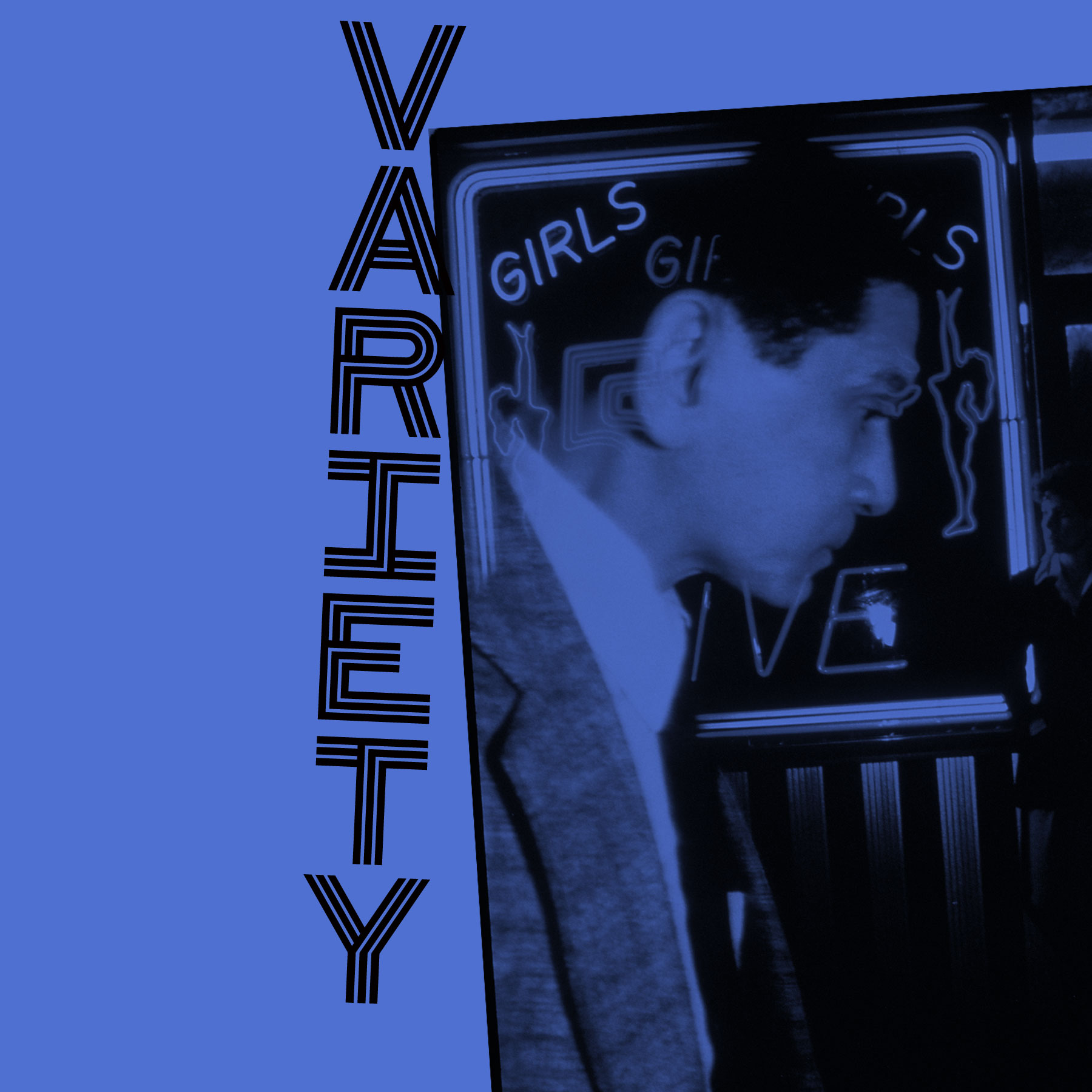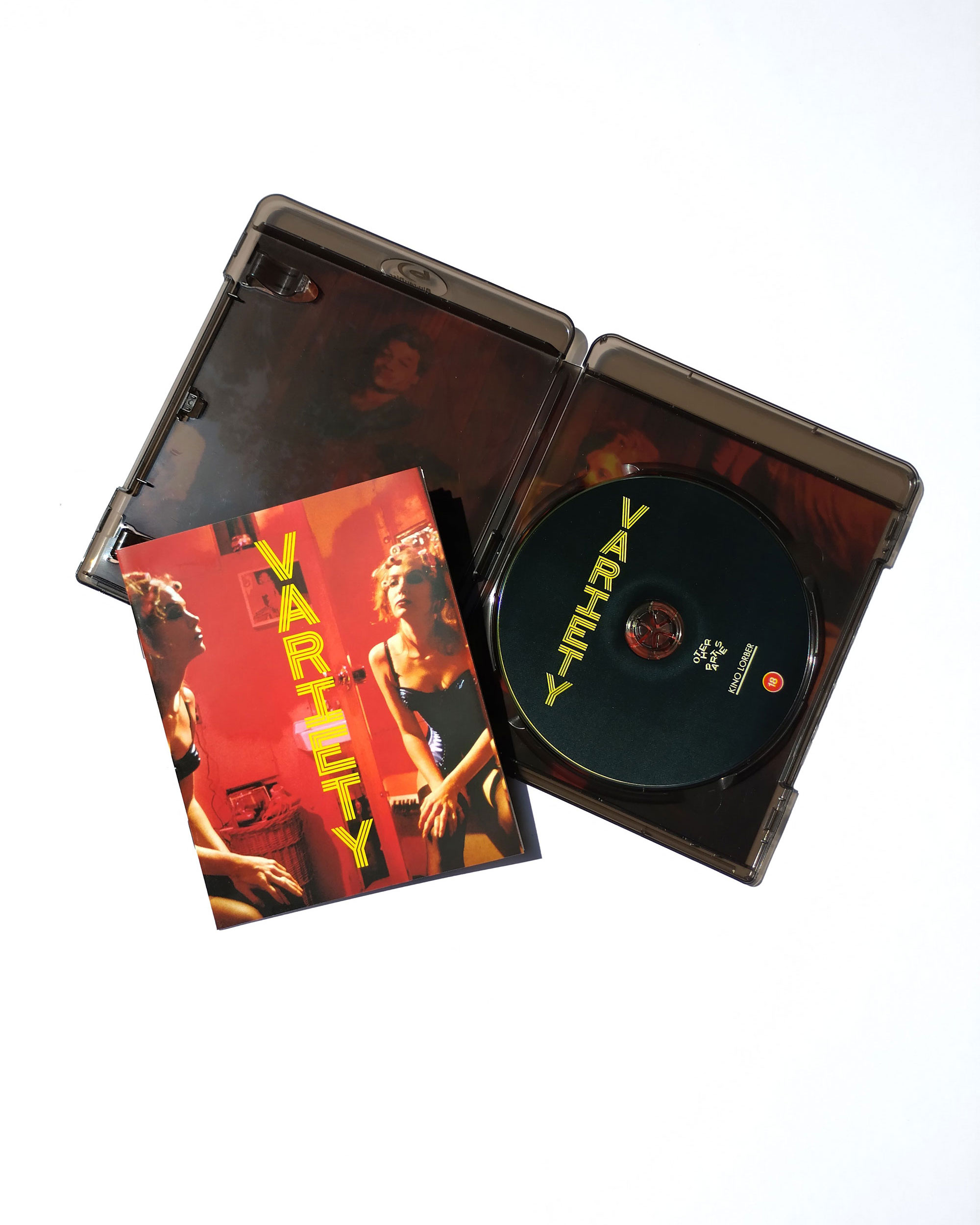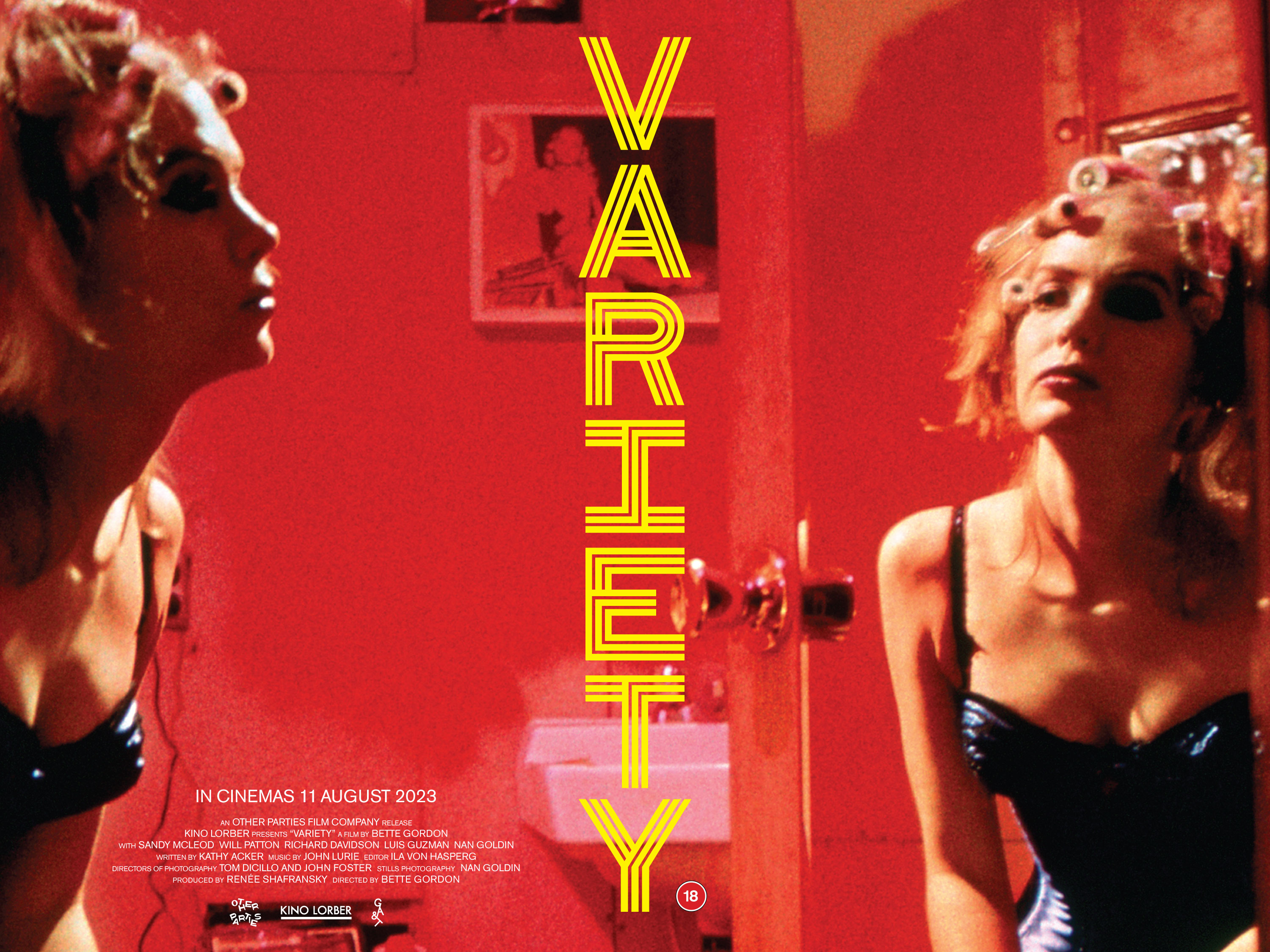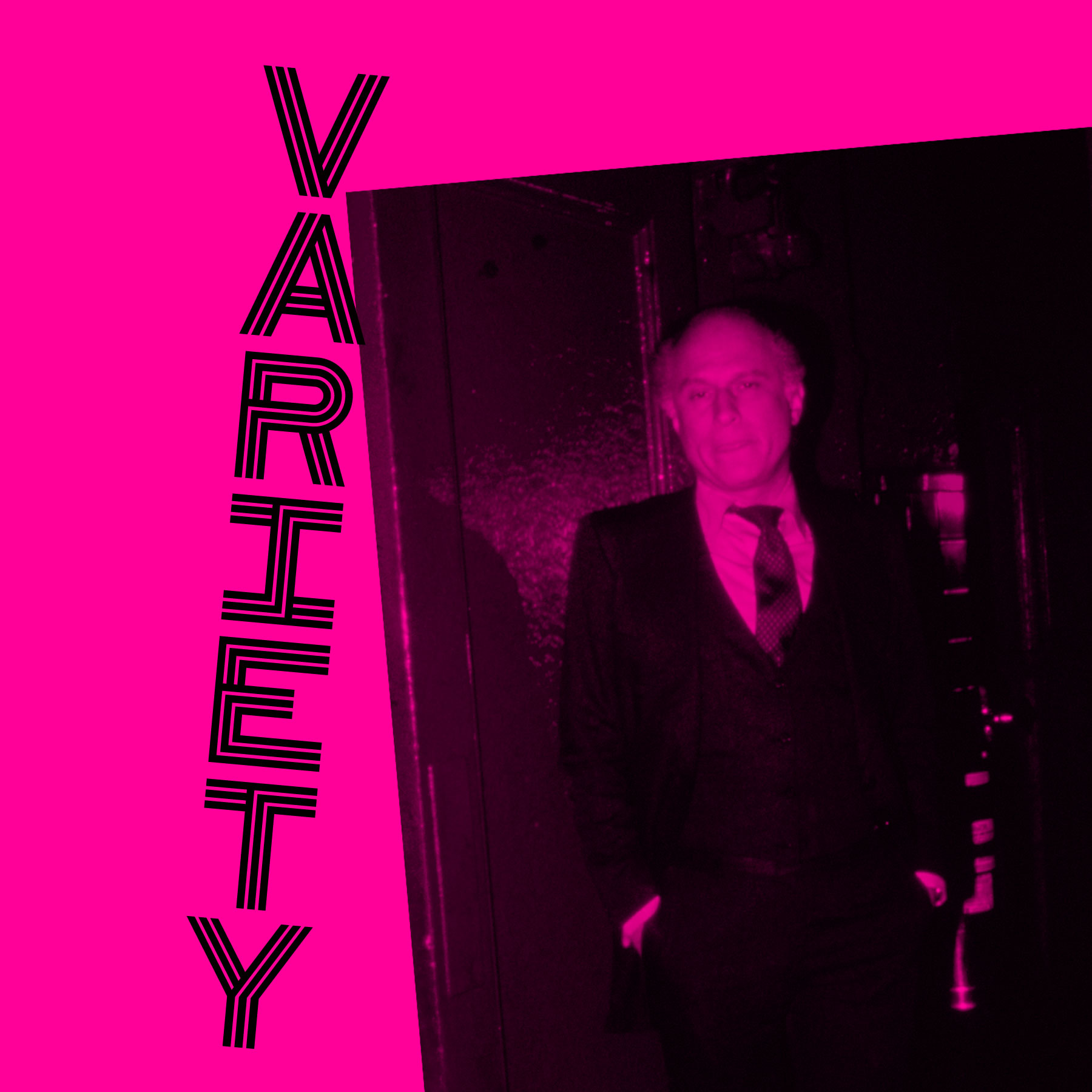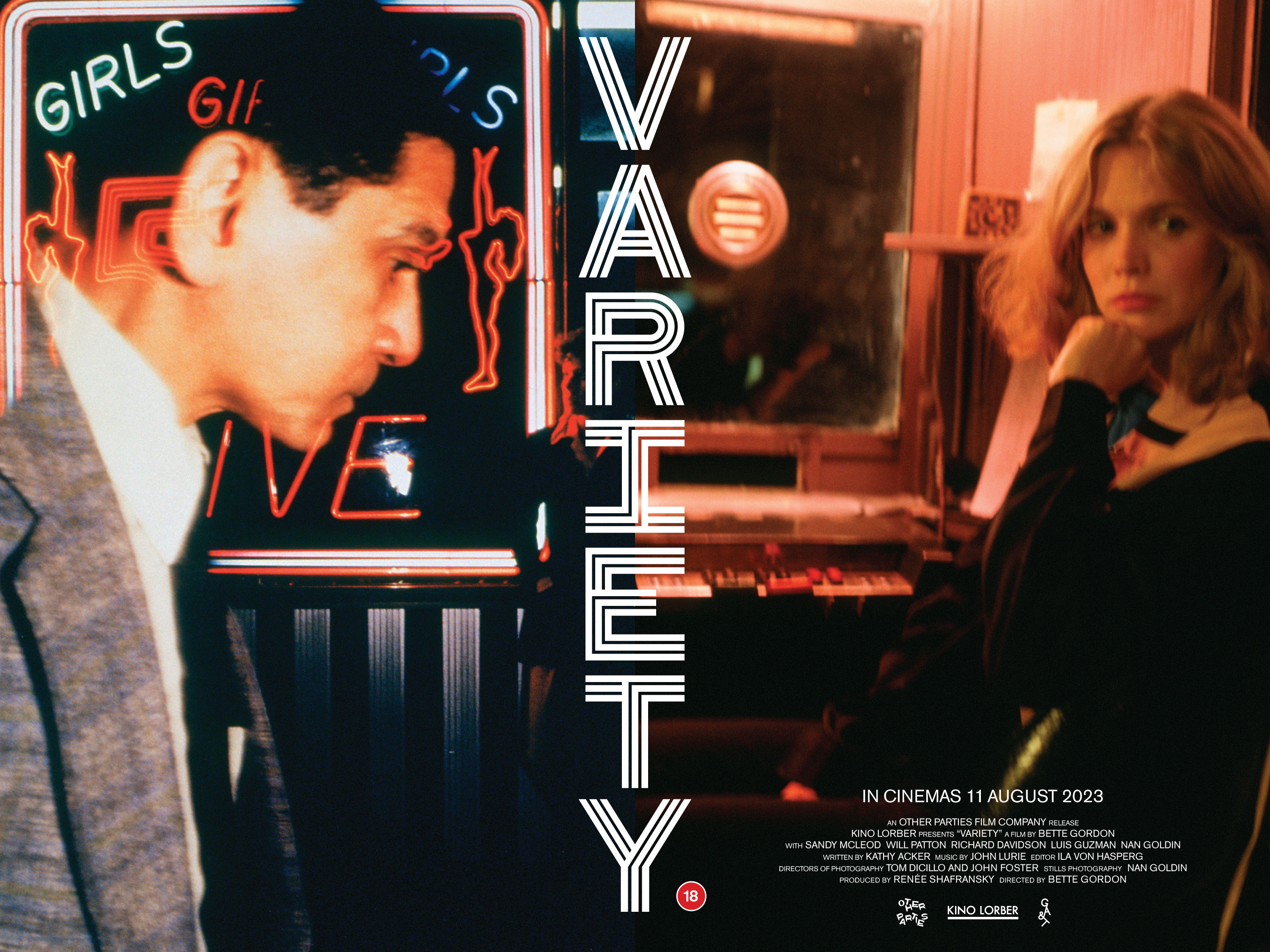
Variety UK cinema release creative and Limited Edition
Blu-Ray
Creative for the UK theatrical release of Variety directed by Bette Gordon for Other Parties Film Company. The design features a bespoke vertical wordmark with stills from the film by Nan Goldin. To support the release social assets channelled a DIY New York club night flyer aesthetic. You can also see the Limited edition Blu-Ray packaging design.
Offical UK reissue quad poster creative
Alternative quad poster creatives
Social media monochrome creative
Limited Edition Blu-Ray release packaging, insert, booklet and disc
Portrait release creative